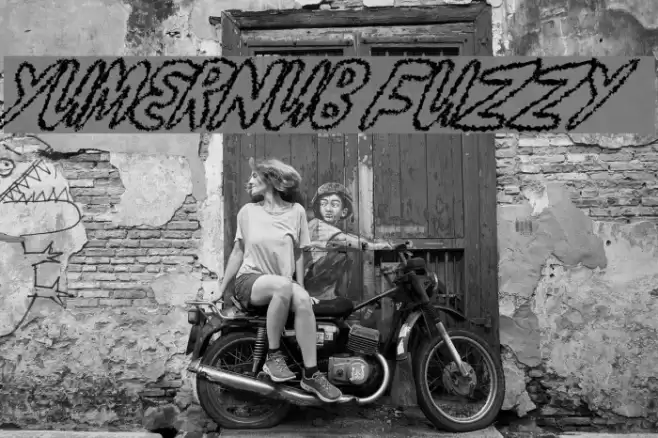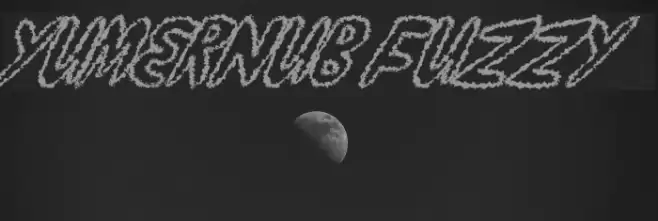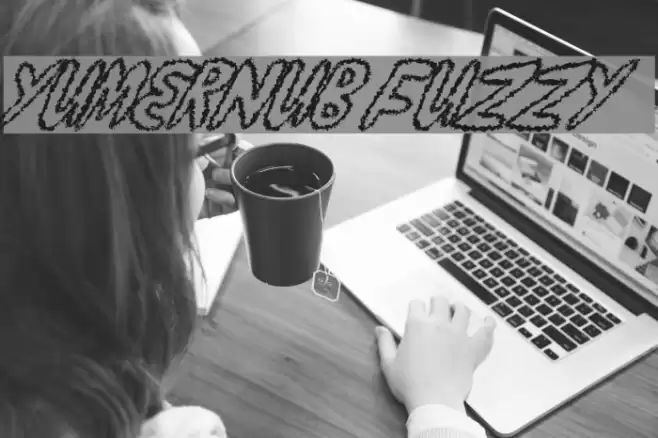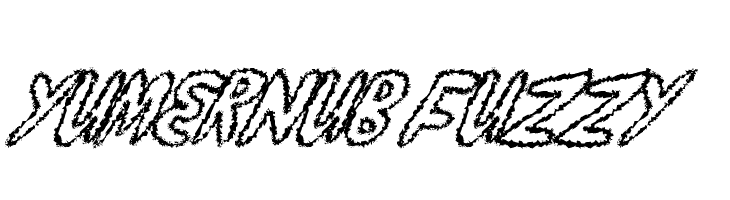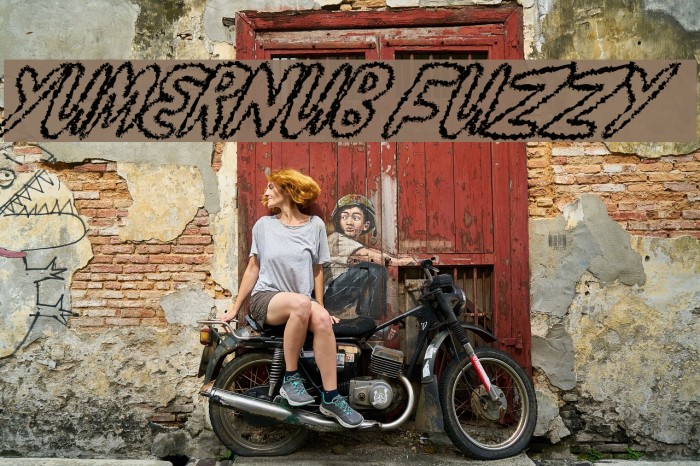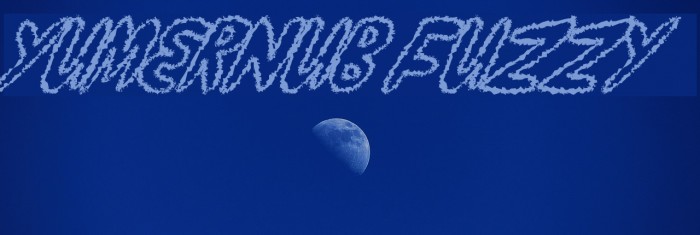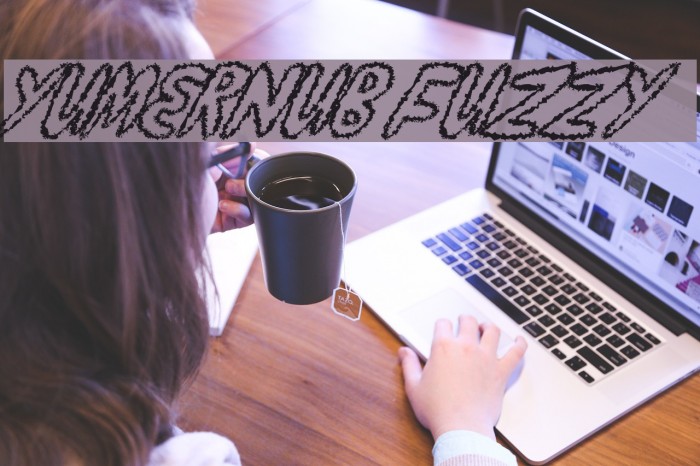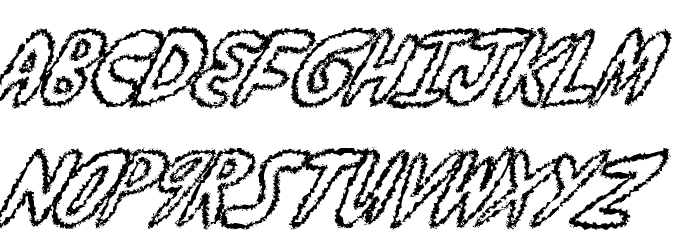
yumernub fuzzy Font
yumernub fuzzy Description
This font features a unique, fuzzy outline that gives each character a dynamic and energetic appearance. The letters are bold and slightly italicized, with a playful, hand-drawn quality. The edges are irregular, creating a sense of movement and texture. This style is reminiscent of graffiti or street art, making it stand out with its unconventional and artistic flair. The font maintains readability despite its decorative elements, making it suitable for eye-catching designs.
A bold, fuzzy, and dynamic font with a playful, hand-drawn style from Cartoon fonts.
- Proposed Projects: Ideal for projects that require a bold statement, such as posters, album covers, or branding for creative industries. It can also be used in digital art, social media graphics, and event promotions.
- Overall Style: Modern, Decorative